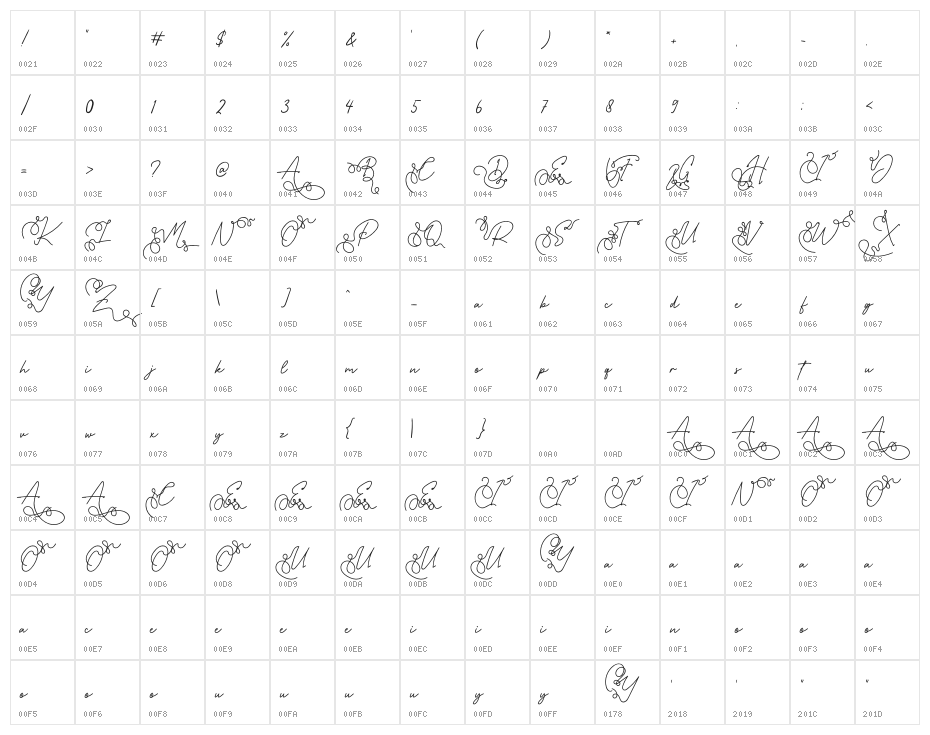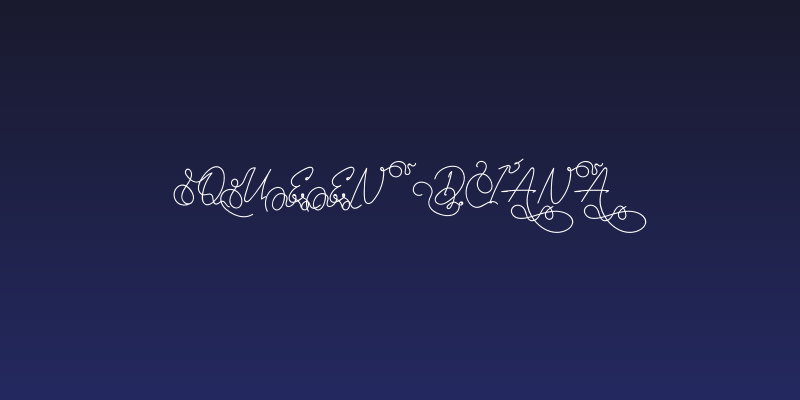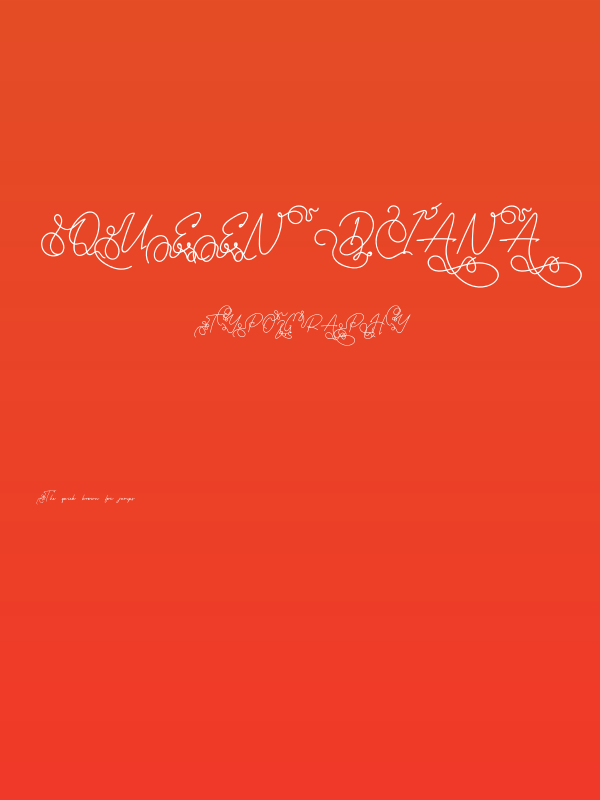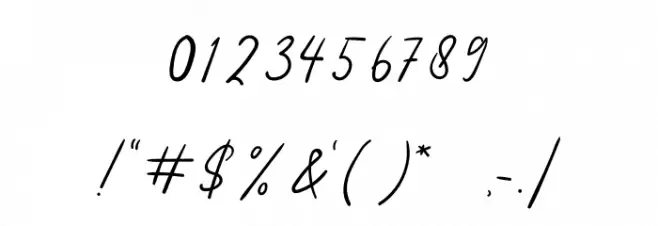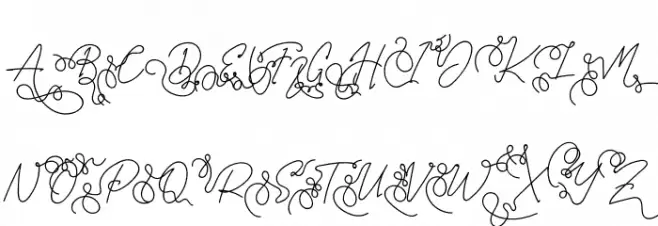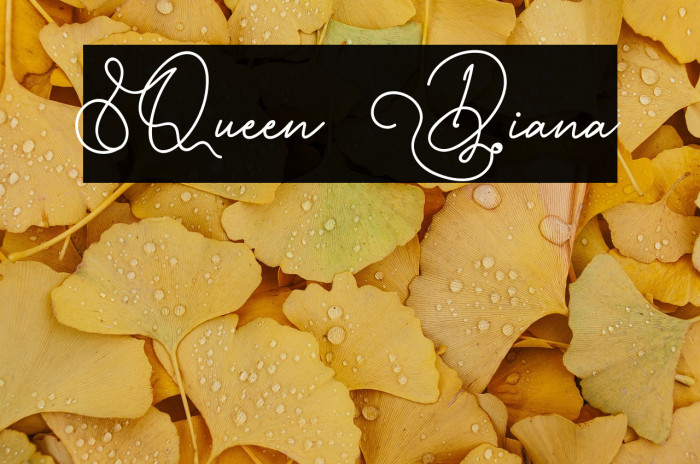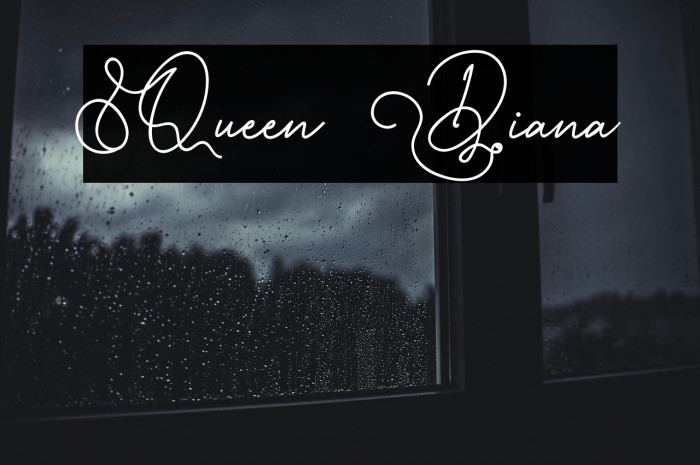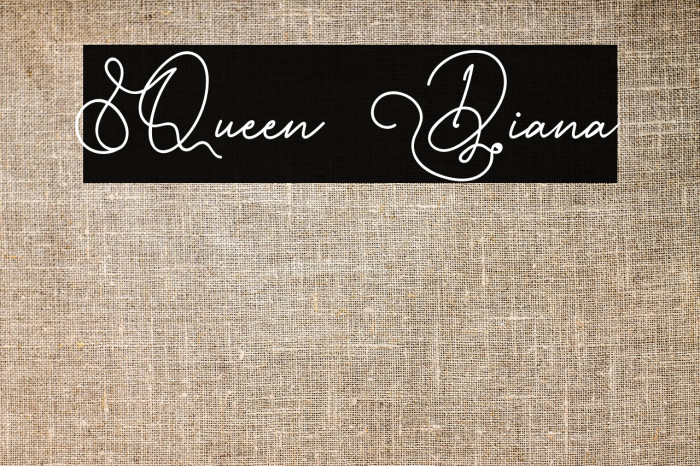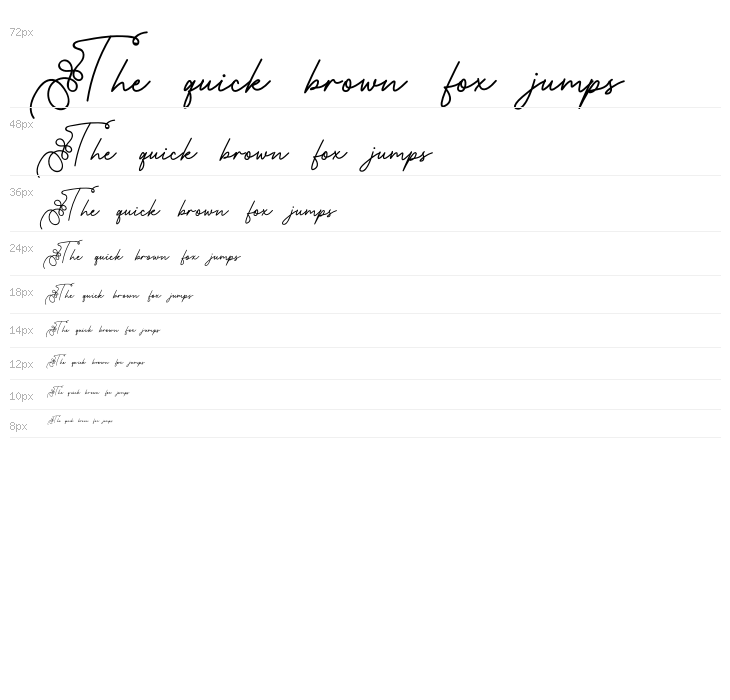
Queen Diana Font
Queen Diana Description
A decorative script font with intricate swirls and flourishes, offering an elegant and sophisticated appearance.
| Use Case | Logos, Invitations, Decorative headings |
| Proposed Projects | Wedding invitations, luxury branding, elegant stationery. |